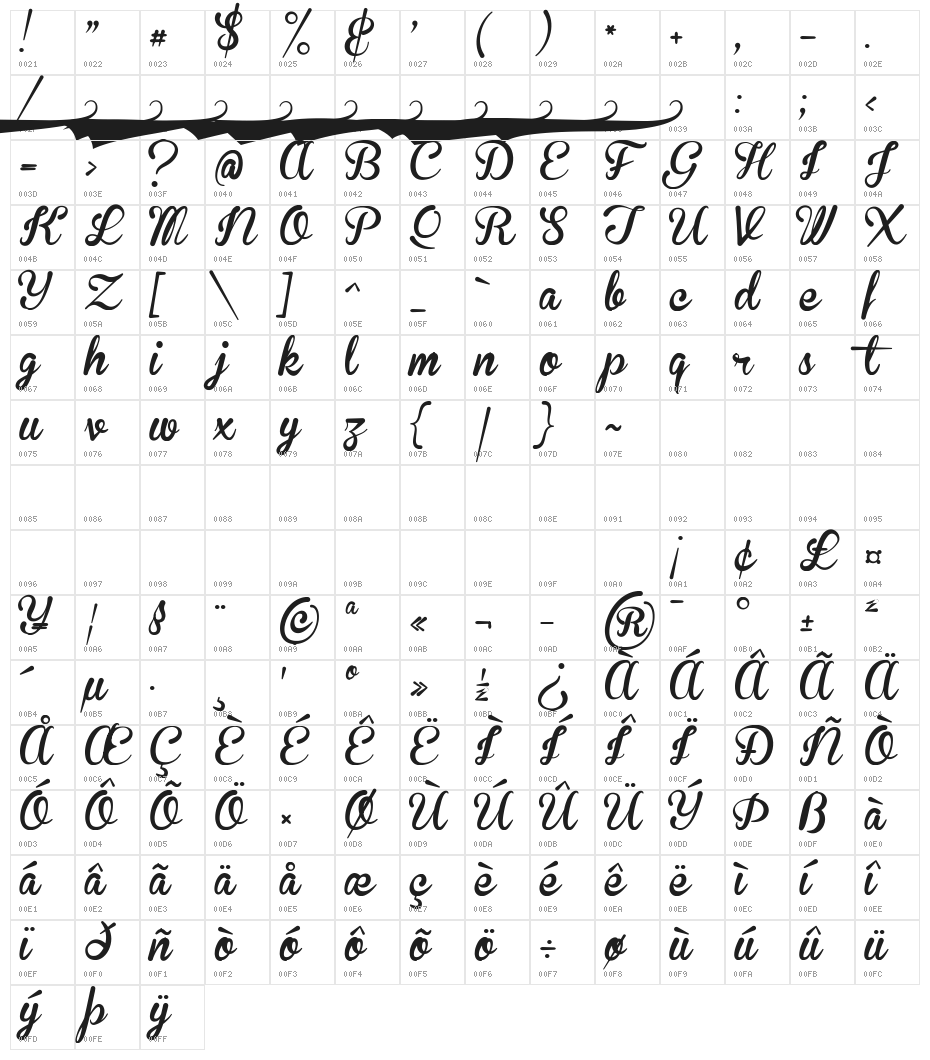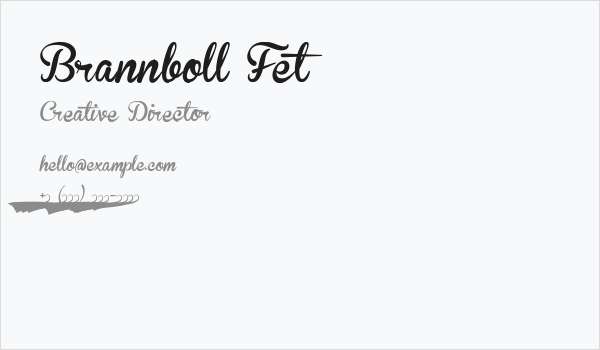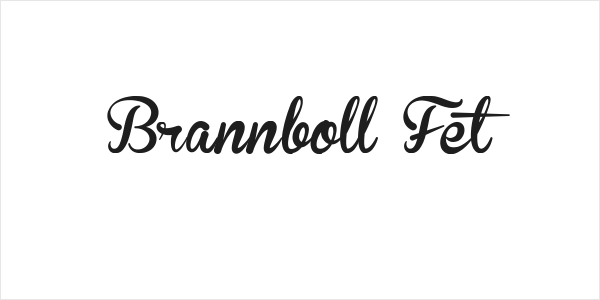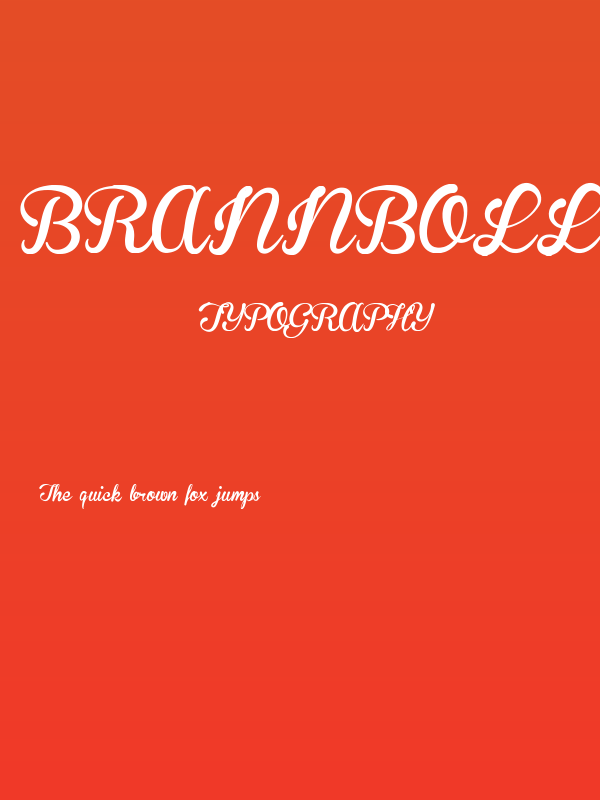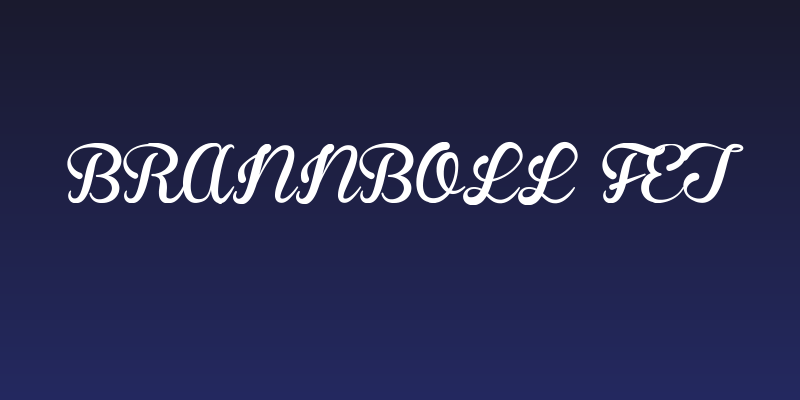
Brannboll Fet Font
Brannboll Fet Description
This font exudes a playful and dynamic energy, characterized by its bold and flowing script style. The letters are connected in a cursive manner, giving it a handwritten feel that is both elegant and casual. The uppercase letters are slightly more ornate, with flourishes that add a touch of sophistication. The lowercase letters maintain a consistent flow, enhancing readability while preserving the artistic flair. The numbers and special characters are designed to match the overall aesthetic, ensuring a cohesive look across all text elements. This font is perfect for projects that require a personal touch, such as invitations, greeting cards, or branding materials that aim to convey creativity and warmth.